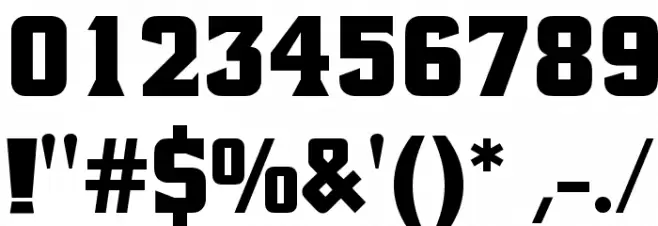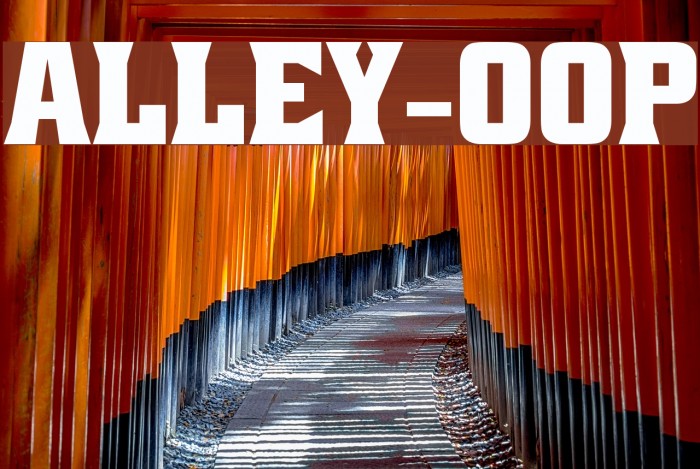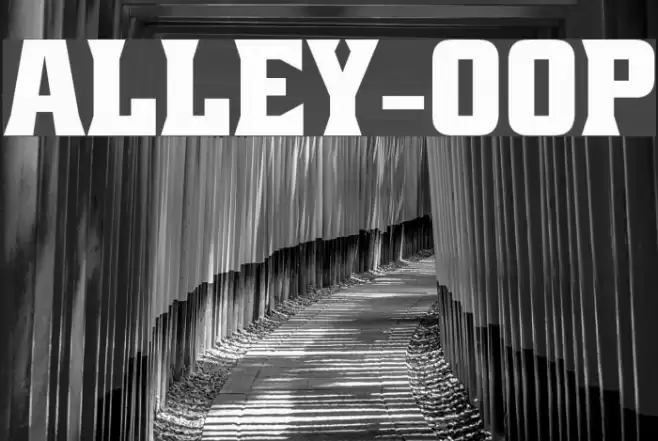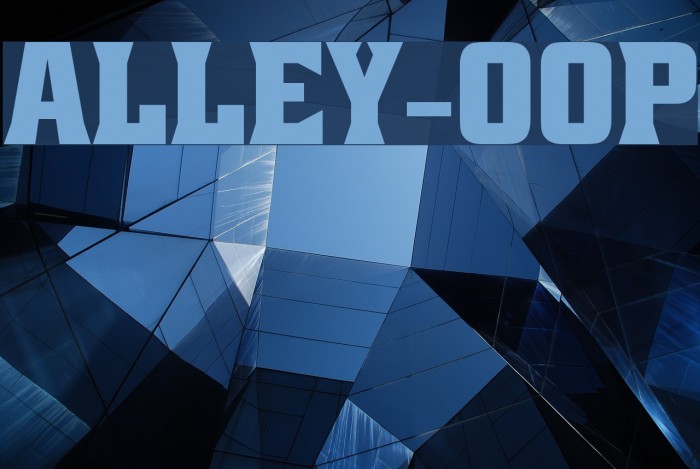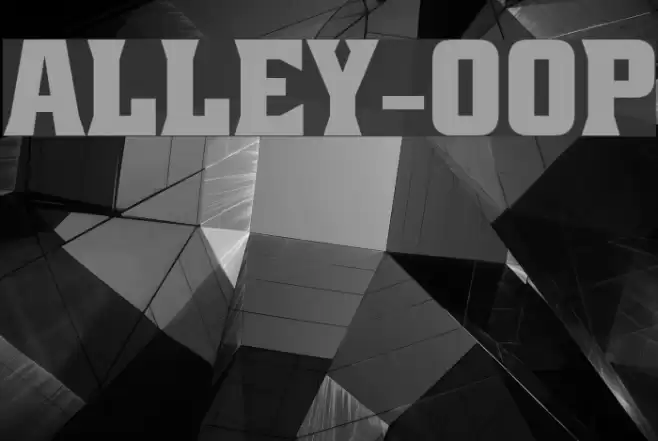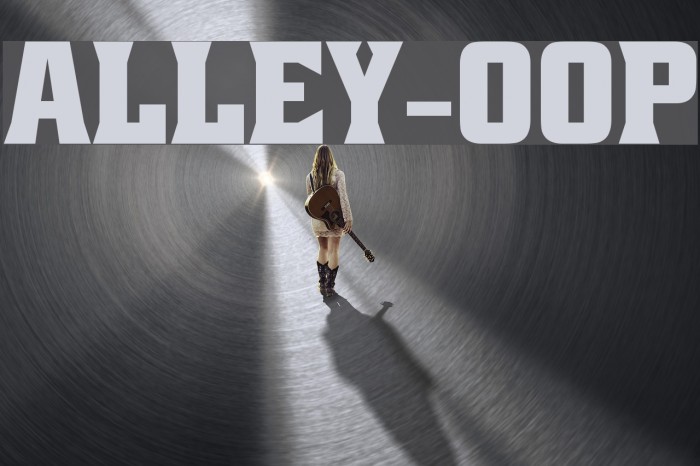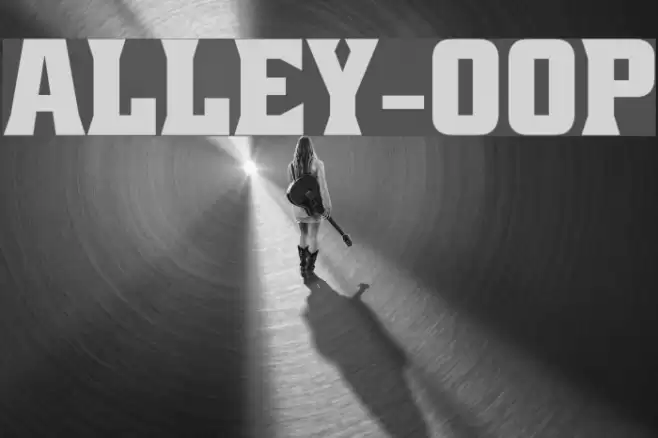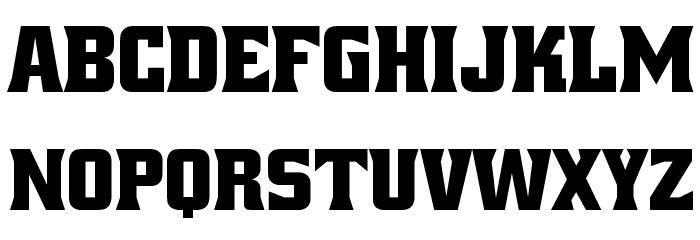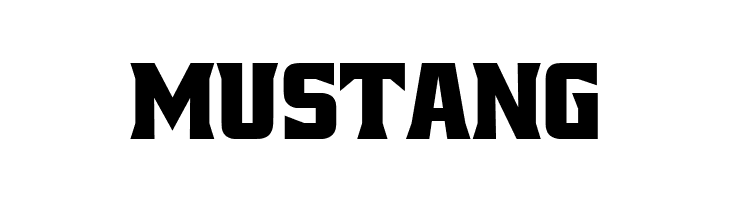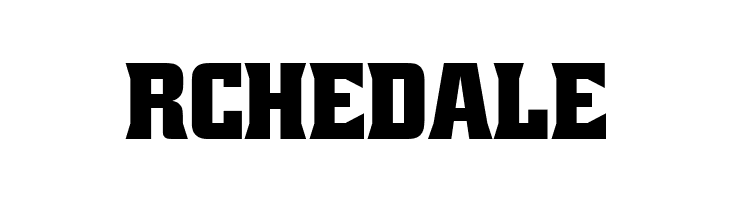
Alley-Oop Font
Alley-Oop Description
This font features a bold and dynamic style with strong geometric shapes and a slightly condensed form. The characters exhibit a consistent stroke width, contributing to a uniform and cohesive appearance. The uppercase letters are particularly striking, with sharp angles and a robust presence that commands attention. The numerals and special characters maintain the same boldness, ensuring readability and impact across various uses. This font is ideal for projects that require a strong visual statement, such as branding, posters, and headlines. Its bold nature makes it less suitable for body text but perfect for creating a memorable impression.
| Proposed Projects | Branding, posters, headlines, sports team logos, and any project needing a bold statement. |